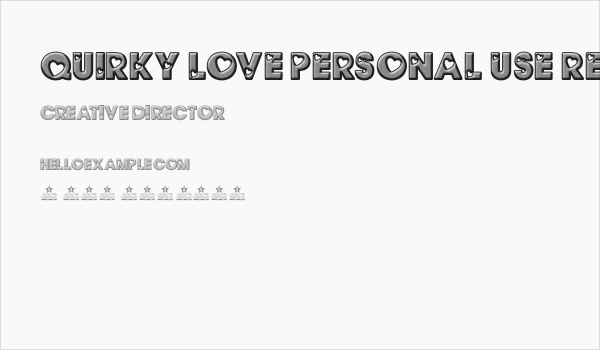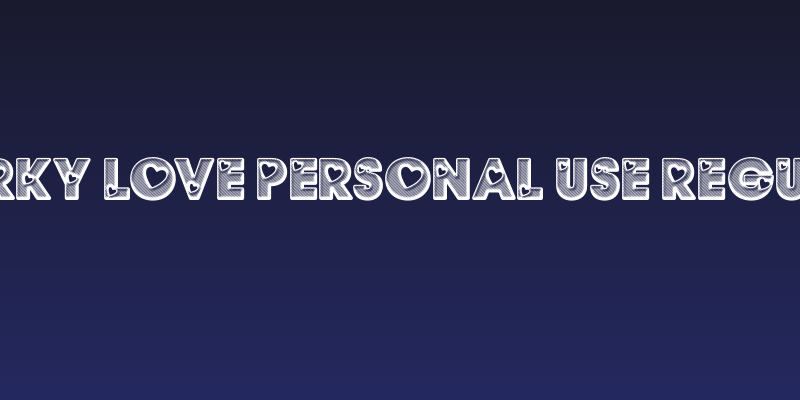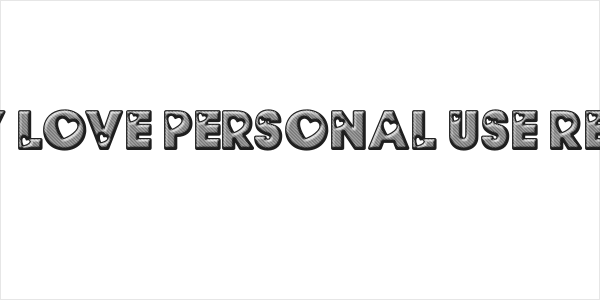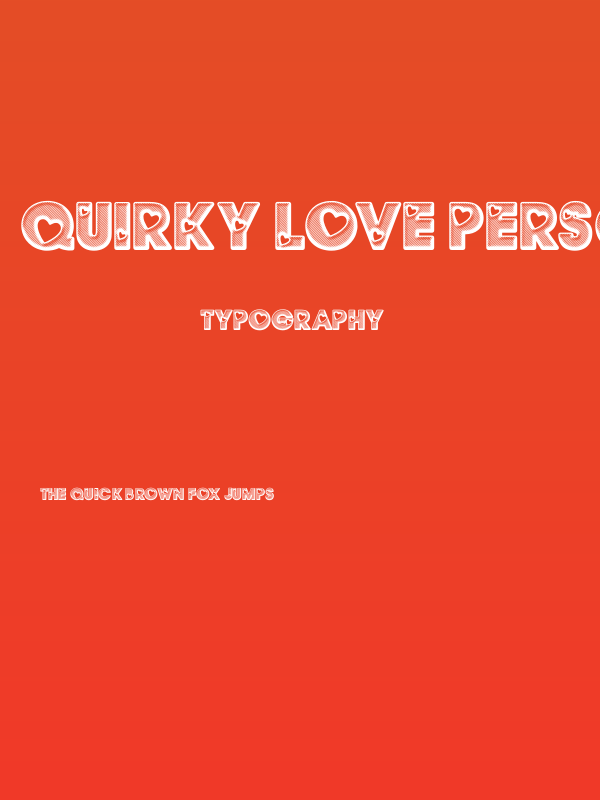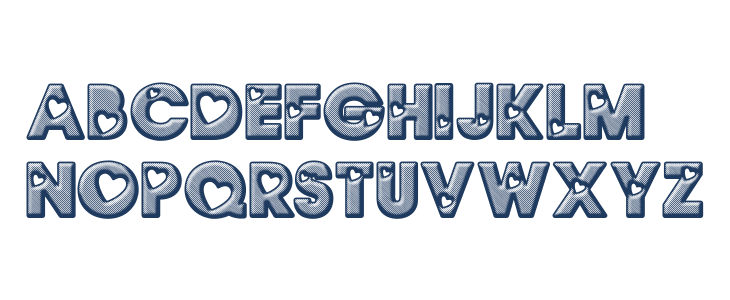
QUIRKY LOVE PERSONAL USE Regular Font
QUIRKY LOVE PERSONAL USE Regular Description
This playful and decorative font features bold, uppercase letters with a unique heart motif embedded within each character. The letters are outlined with a thick border, giving them a three-dimensional appearance. The interior of each letter is filled with diagonal lines, adding texture and depth. The heart shapes vary in size and placement, adding a whimsical and romantic touch to the overall design. This font is perfect for projects that require a fun and loving aesthetic, such as greeting cards, invitations, or playful branding materials.
| Overall Style | Playful, Romantic |
| Proposed Projects | Ideal for greeting cards, invitations, playful branding, and romantic-themed designs. |